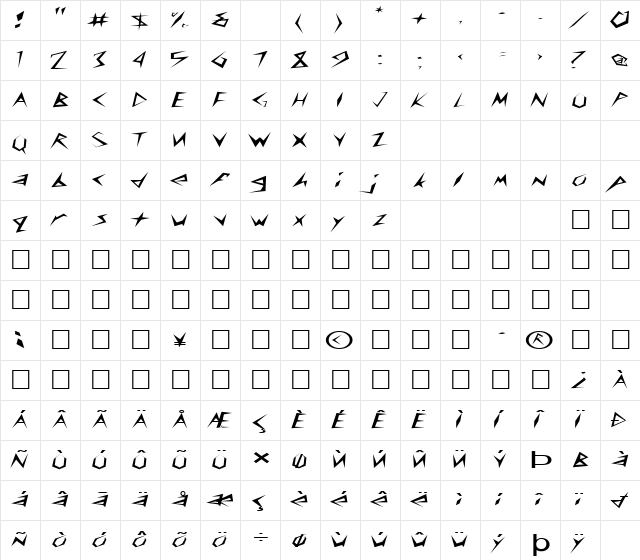
FZ UNIQUE 17 EX Light
Design Context for FZ UNIQUE 17 EX Typeface
FZ UNIQUE 17 EX is a composed and adaptable typeface that performs quietly and consistently across a wide range of design contexts. The delicate stroke weight brings airiness and refinement to layouts.